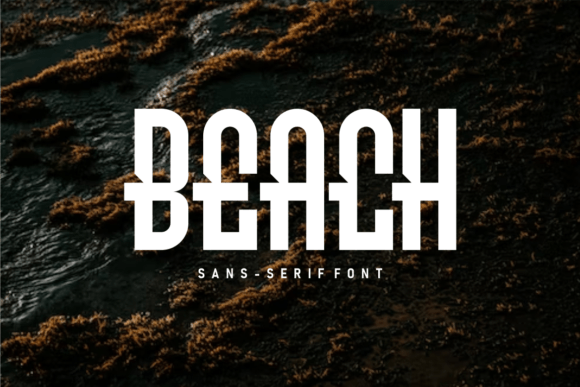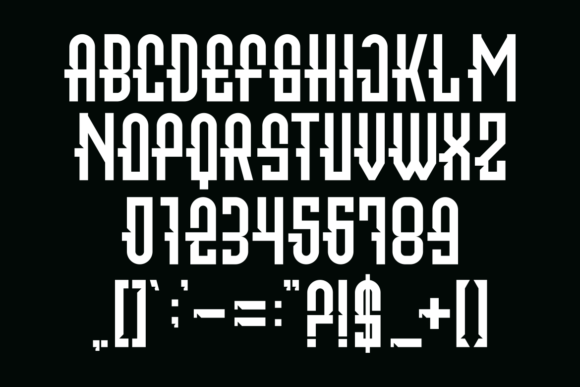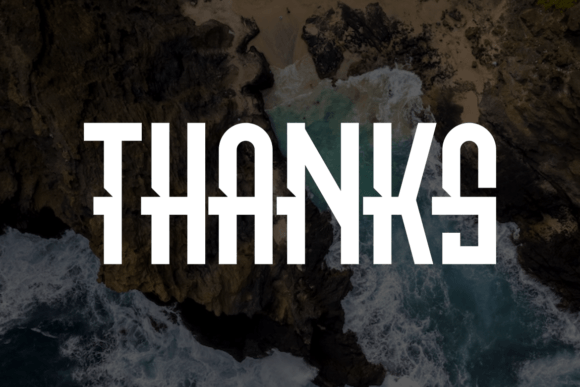
Enter the Klondo Font, an exquisite sans serif font that exudes elegance, sophistication, and modernity. With its intricate design, Klondo Font is the perfect solution for a wide range of projects, from signature and stationery to logo design and magazine covers. Whether you’re a seasoned designer or a creative entrepreneur, the Klondo Font is an invaluable tool in your design arsenal.
Klondo Font Key Features
- Font Family: Klondo Font is a sans-serif font family designed for modern and clean typography.
- Unique Characteristics: Klondo Font features a unique blend of modern and minimalist design elements, including clean lines, geometric shapes, and subtle rounded corners.
Klondo Font Review
As a designer, I was excited to dive into the Klondo Font and see what it had to offer. Overall, I think it’s a solid choice for certain projects, but it has its limitations. Let’s start with the good stuff: ✨
- Unique aesthetic: The Klondo Font has a distinct, quirky feel that sets it apart from more traditional fonts. It’s perfect for designers looking to add some personality to their projects.
- Good legibility: Despite its unconventional design, the Klondo Font is surprisingly easy to read, even at smaller font sizes.
- Great for creative projects: The Klondo Font’s offbeat style makes it a great fit for creative projects like branding, advertising, or editorial design.
Now, let’s talk about the limitations: ⚠️
- Limited versatility: While the Klondo Font is great for creative projects, it may not be the best choice for more formal or professional designs.
- Not ideal for body text: The Klondo Font’s unique style may be distracting when used for large blocks of text. It’s better suited for headlines or smaller text sections.
- Not suitable for small screen sizes: The Klondo Font’s intricate details may get lost when viewed on smaller screens or at smaller font sizes.
Overall, I think the Klondo Font is a great choice for designers looking to add some personality to their projects. Just be aware of its limitations and use it thoughtfully. With the right project and application, the Klondo Font can be a real showstopper.
Klondo Font: A Practical Application Guide
Tips for Getting the Most Out of Klondo Font
Experiment with different font sizes and styles to achieve a unique look. Combine Klondo Font with other fonts for a balanced design. Use it sparingly to avoid overwhelming the viewer.
Klondo Font is suitable for various design projects, including:
- Posters and flyers
- Presentation slides
- Document headings